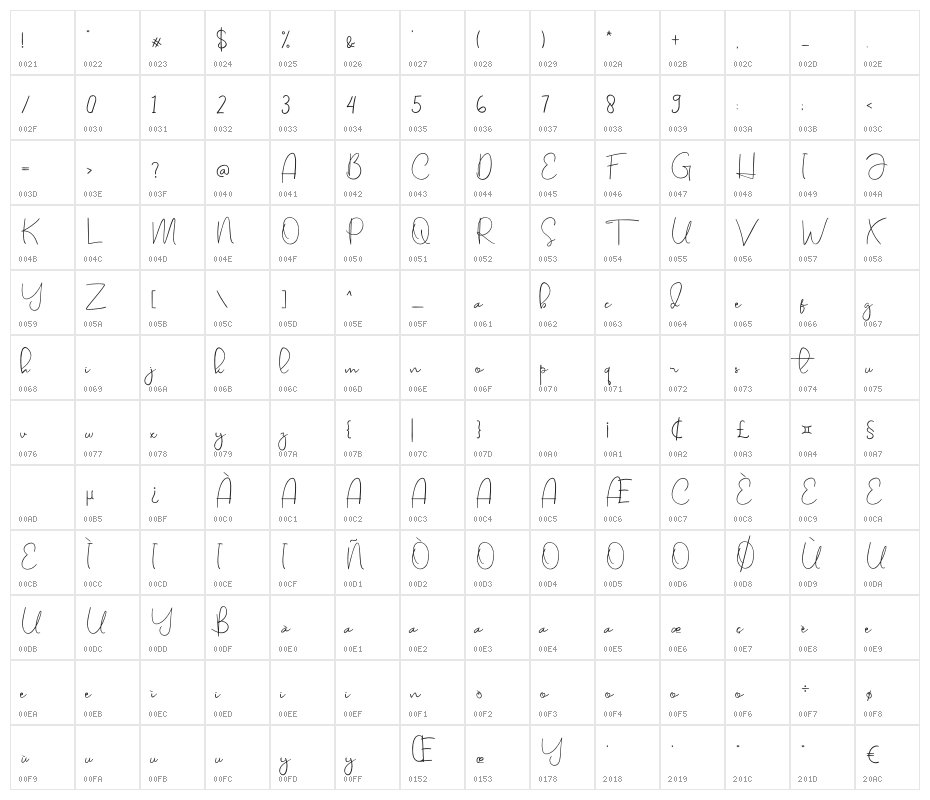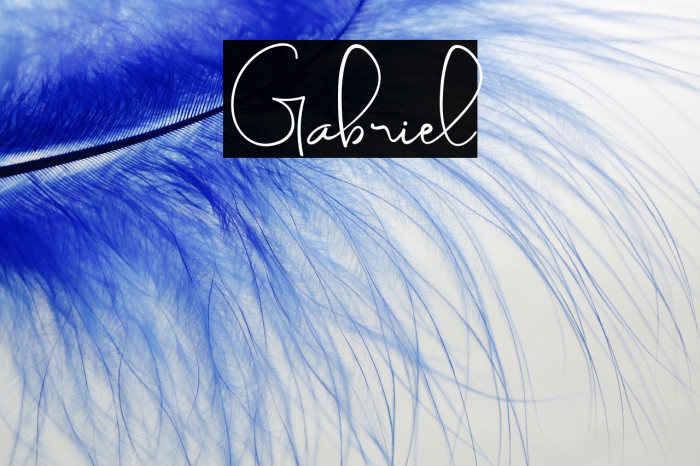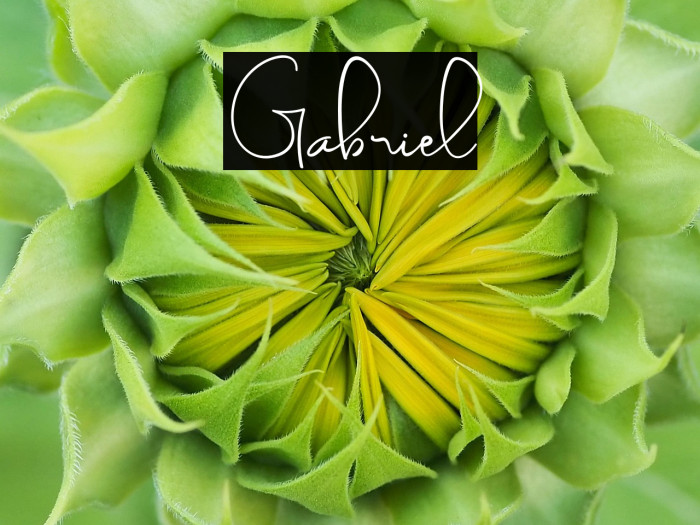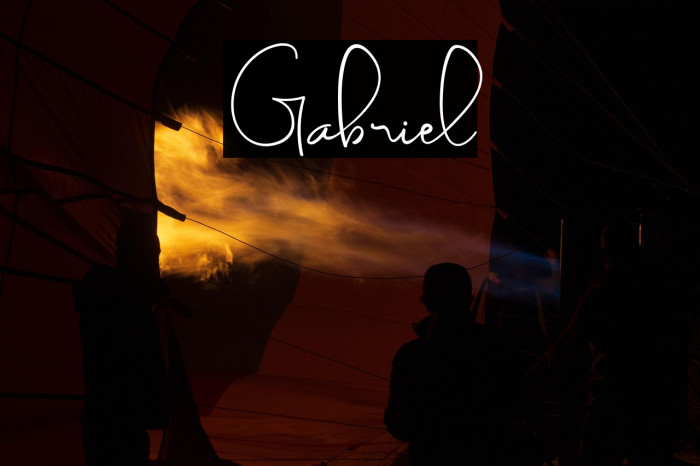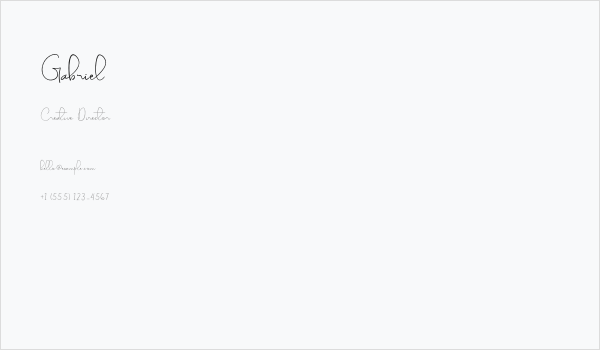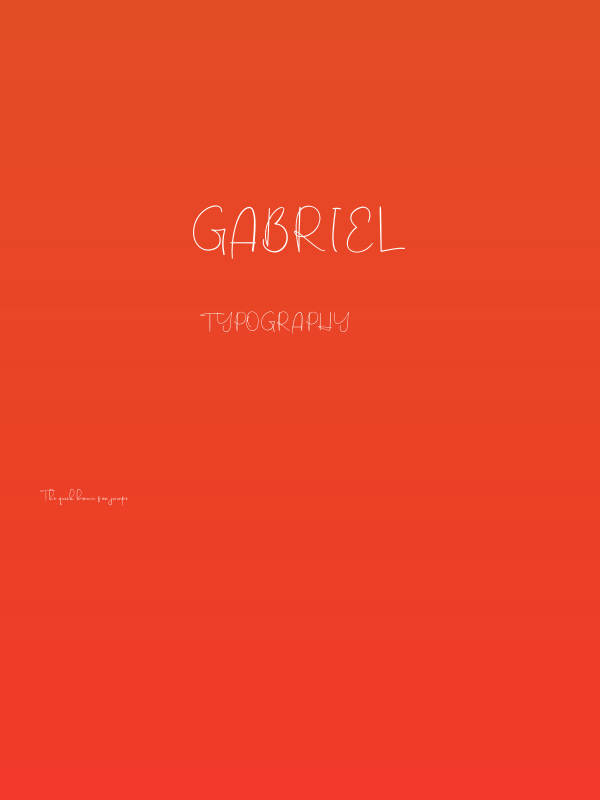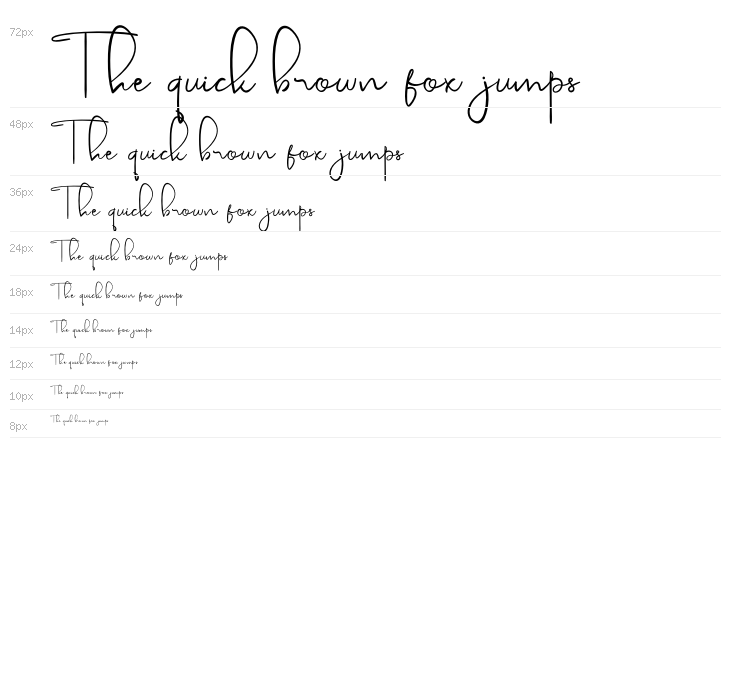
Gabriel Font
Gabriel Description
This font features a delicate and fluid script style with a handwritten appearance. The uppercase letters are tall and slender, with a slight slant that gives them an elegant and sophisticated look. The lowercase letters are more connected, enhancing the cursive feel. The numbers maintain the same slender and flowing style, ensuring consistency across all characters. Special characters are designed with the same attention to detail, making them blend seamlessly with the rest of the font. This font is perfect for projects that require a personal touch, such as invitations, greeting cards, or branding materials.
| Overall Style | Elegant, Handwritten |
| Use Case | Invitations, Personal branding, Greeting cards |
| Proposed Projects | Ideal for wedding invitations, personal branding, greeting cards, and elegant stationery. |